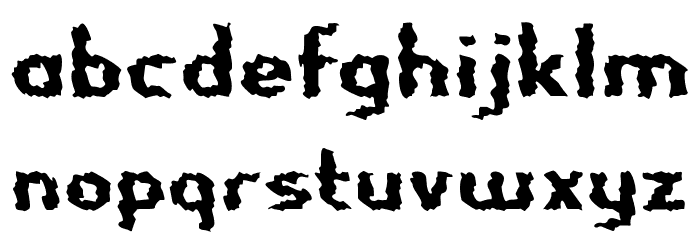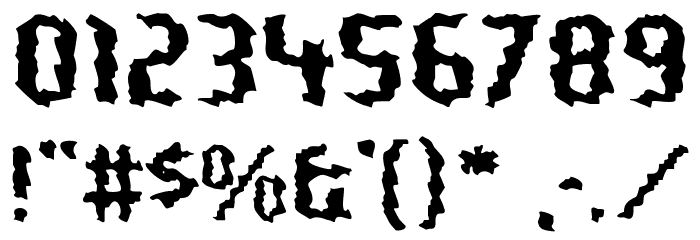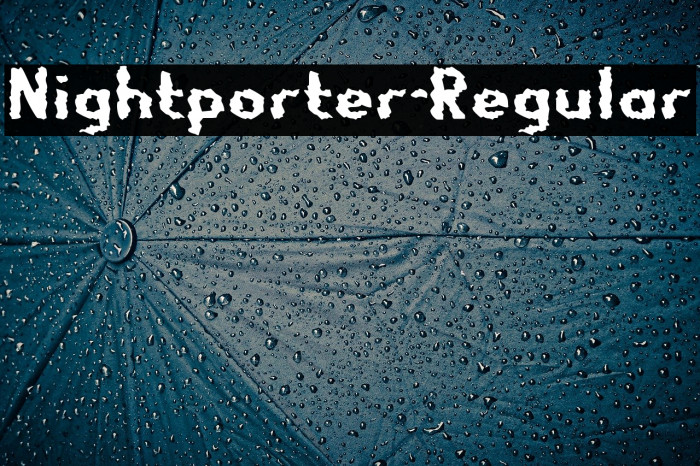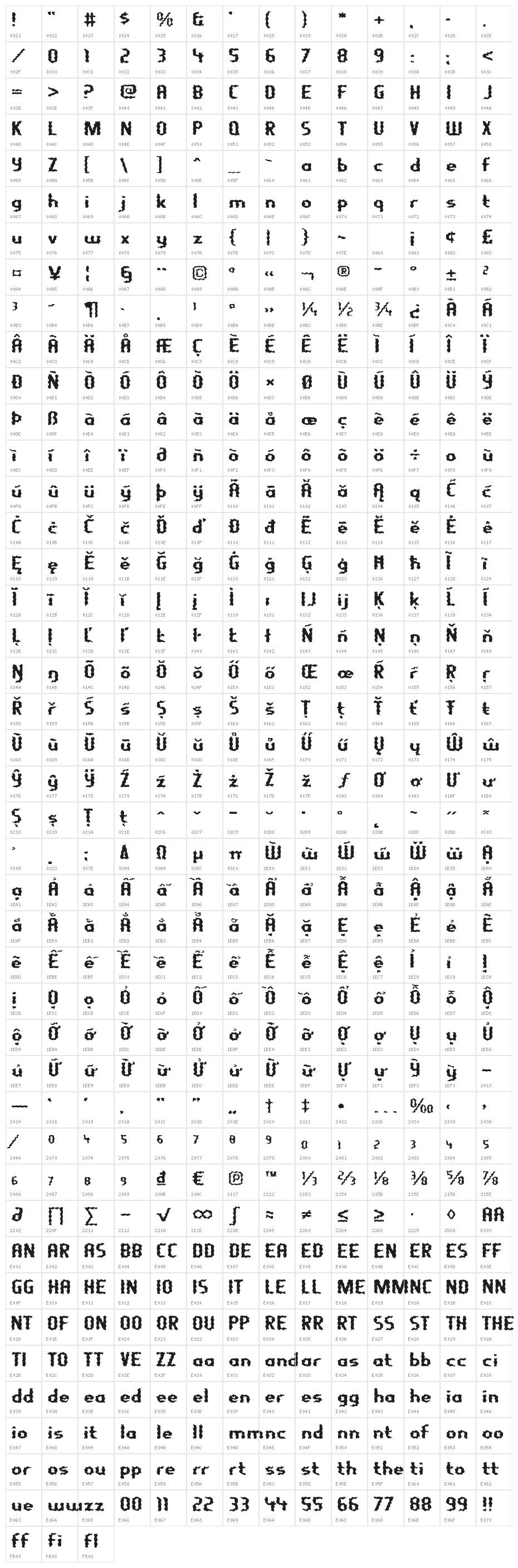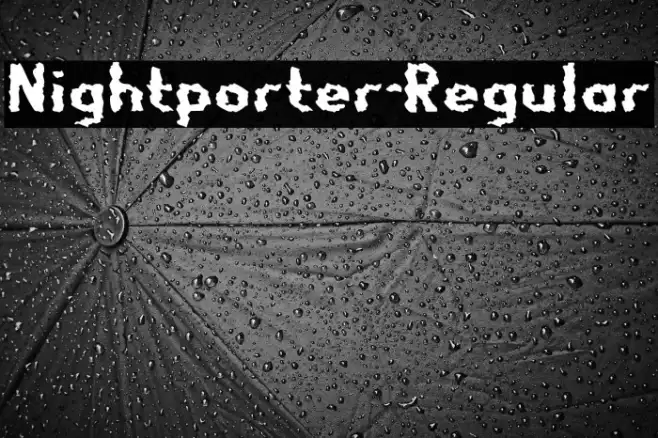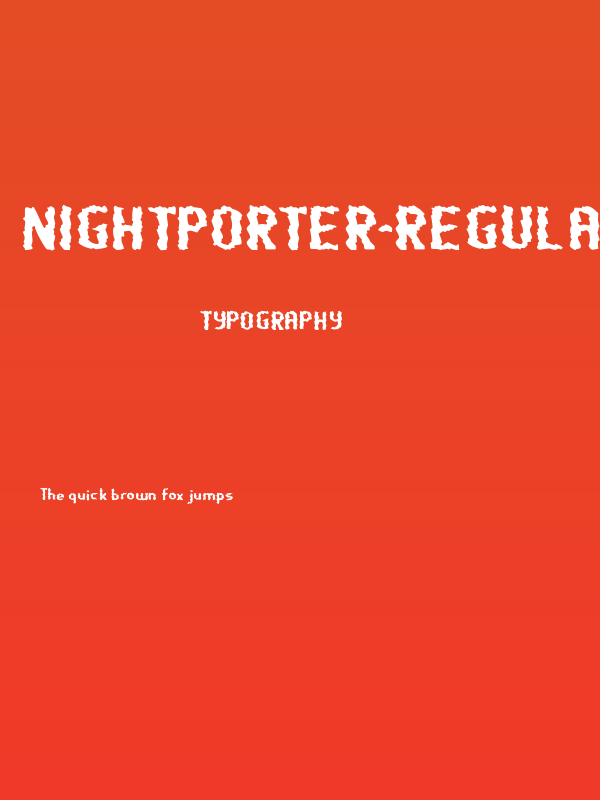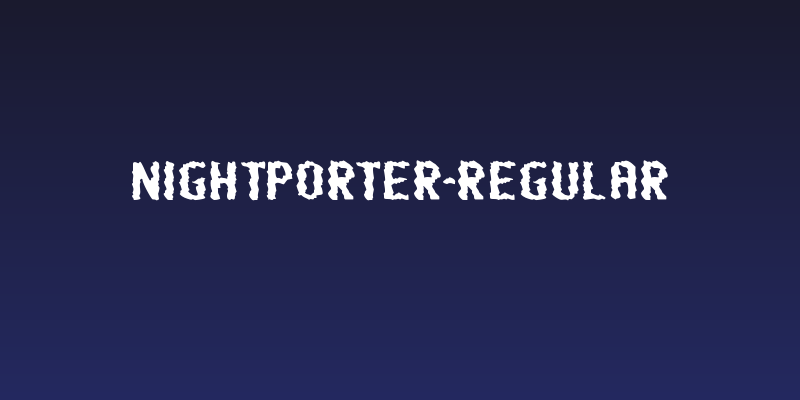
Nightporter-Regular Font
This font features a rugged, distressed style with irregular edges and a bold presence. The characters appear as if they have been carved or eroded, giving them a unique, organic texture. The uppercase and lowercase letters maintain a consistent height, while the numbers and special characters follow the same rough aesthetic. This font exudes a sense of mystery and edginess, making it suitable for projects that require a dramatic and unconventional look.
A rugged, distressed font with irregular edges and a bold, organic texture.
- Proposed Projects: Ideal for horror movie posters, Halloween event flyers, edgy album covers, or any project needing a dramatic and unconventional typeface.